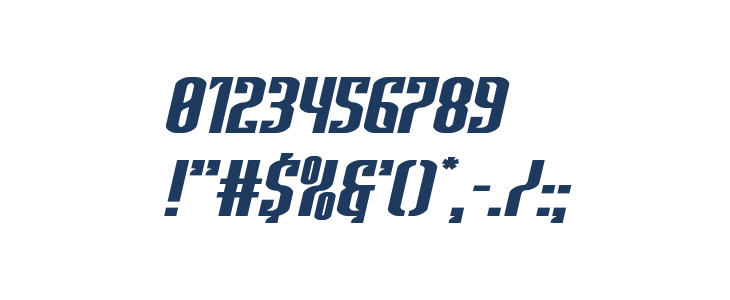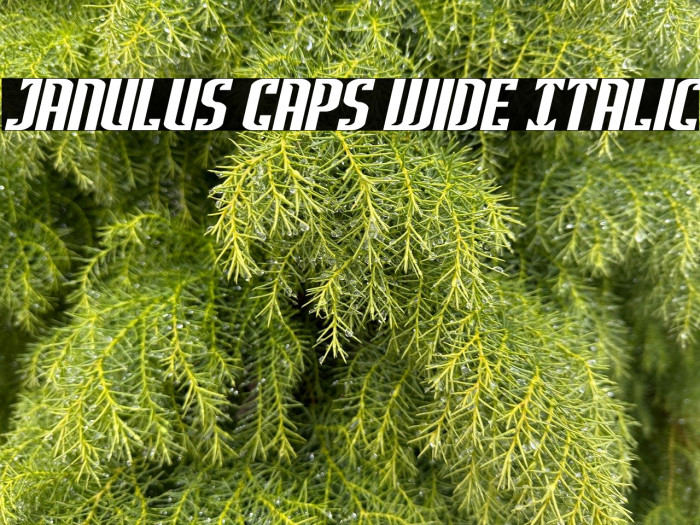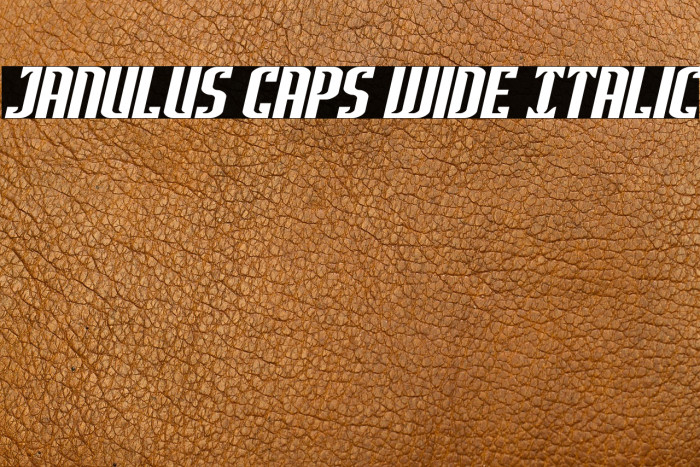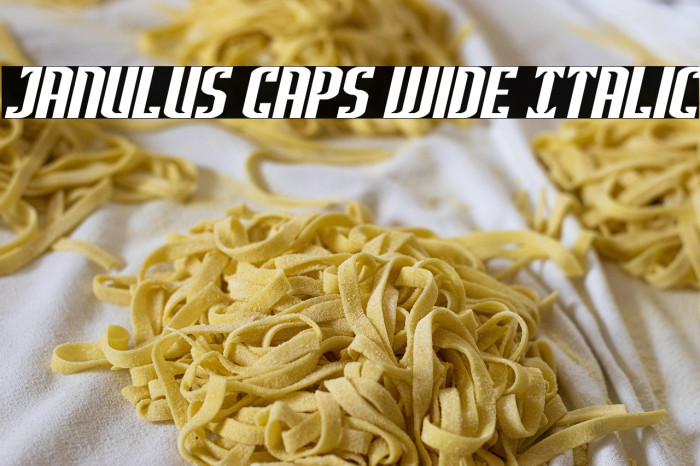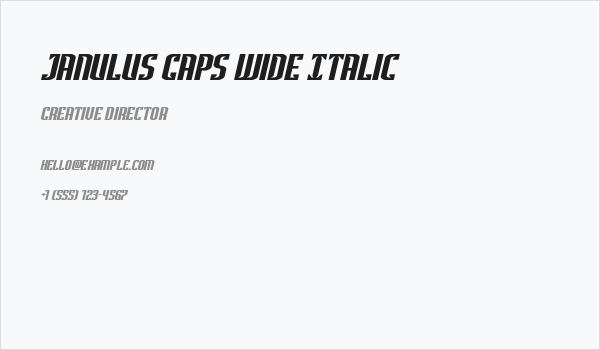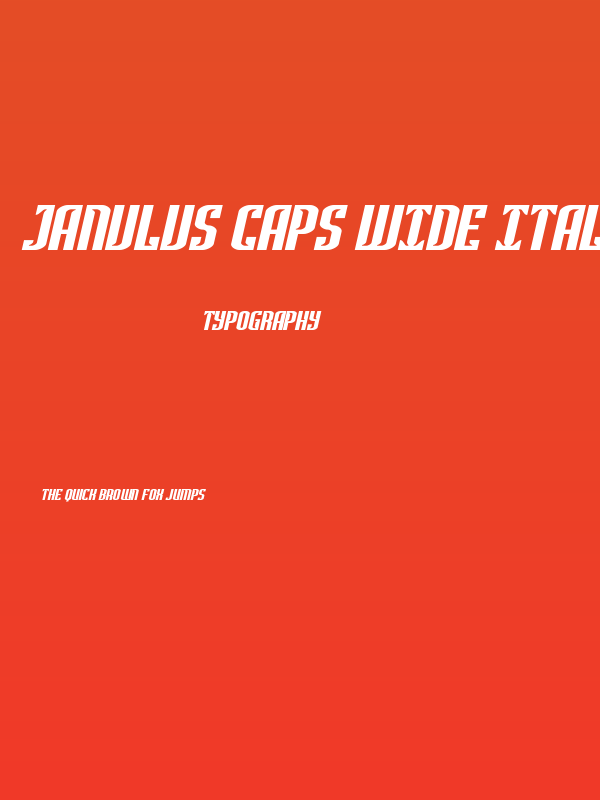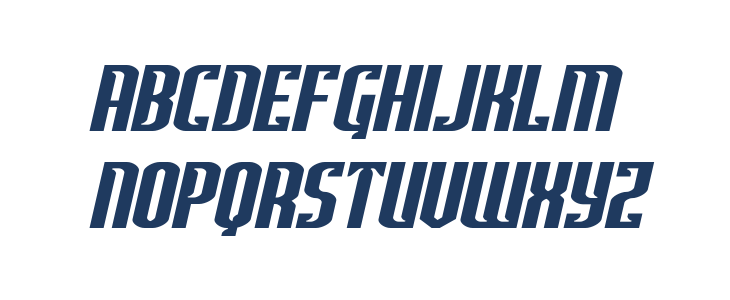
Janulus Caps Wide Italic Font
Janulus Caps Wide Italic Description
This font features a bold and dynamic design with a strong italic slant, giving it a sense of motion and energy. The characters are wide and have a distinct geometric style, with sharp angles and clean lines that create a modern and impactful appearance. The uppercase and lowercase letters maintain a consistent style, while the numerals and special characters are designed to complement the overall aesthetic. The font's boldness and wide stance make it highly legible and suitable for attention-grabbing headlines or titles.
| Proposed Projects | Ideal for sports branding, dynamic posters, modern advertising, and impactful headlines. |